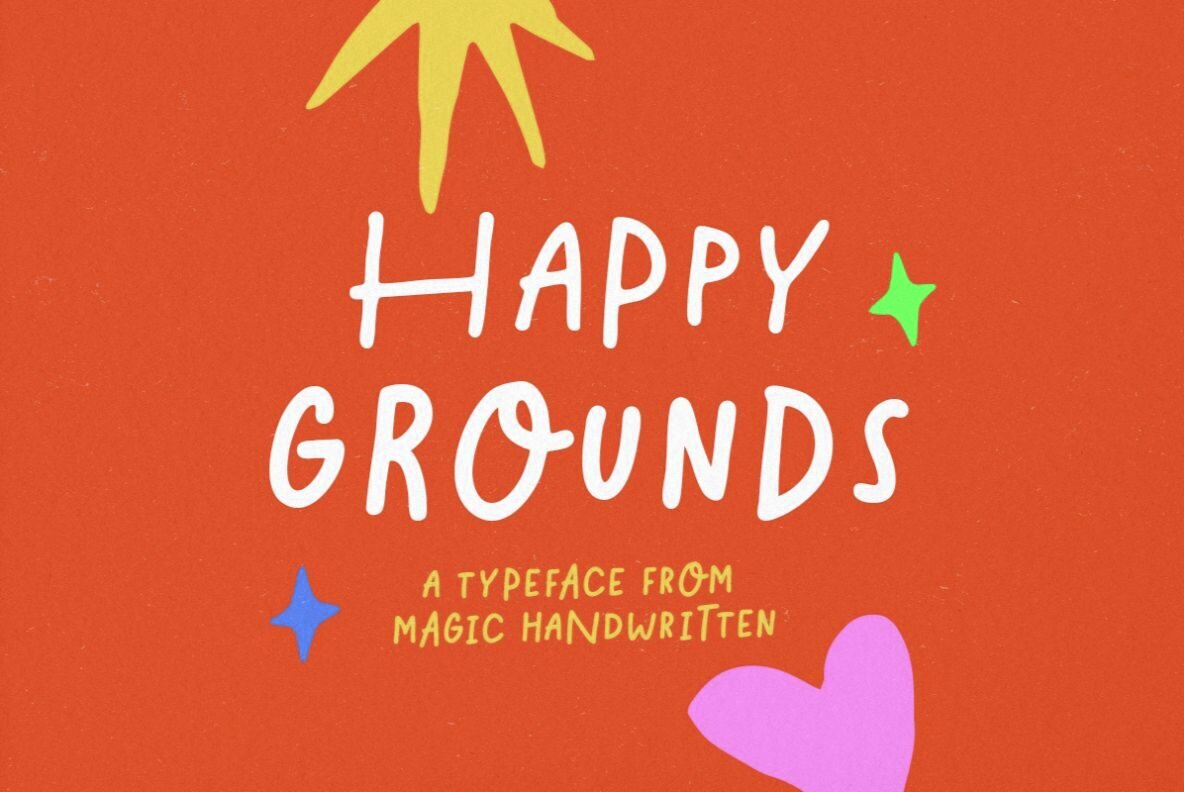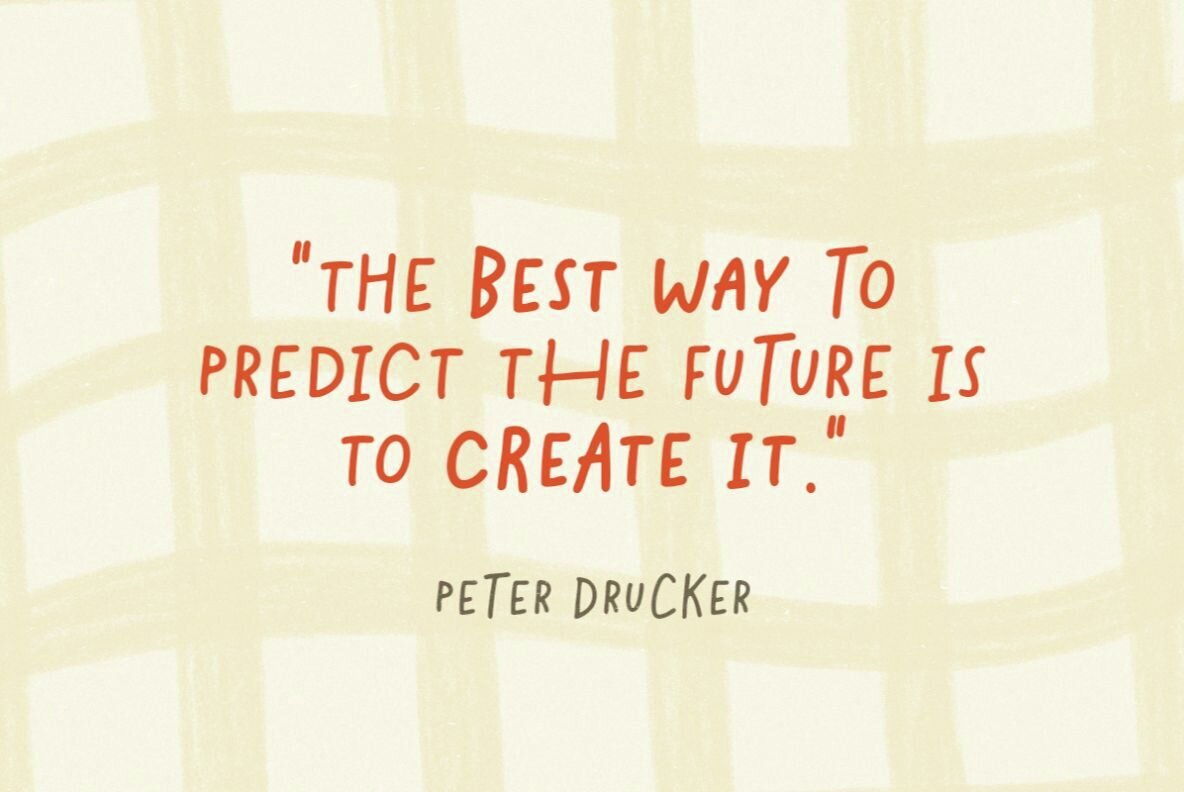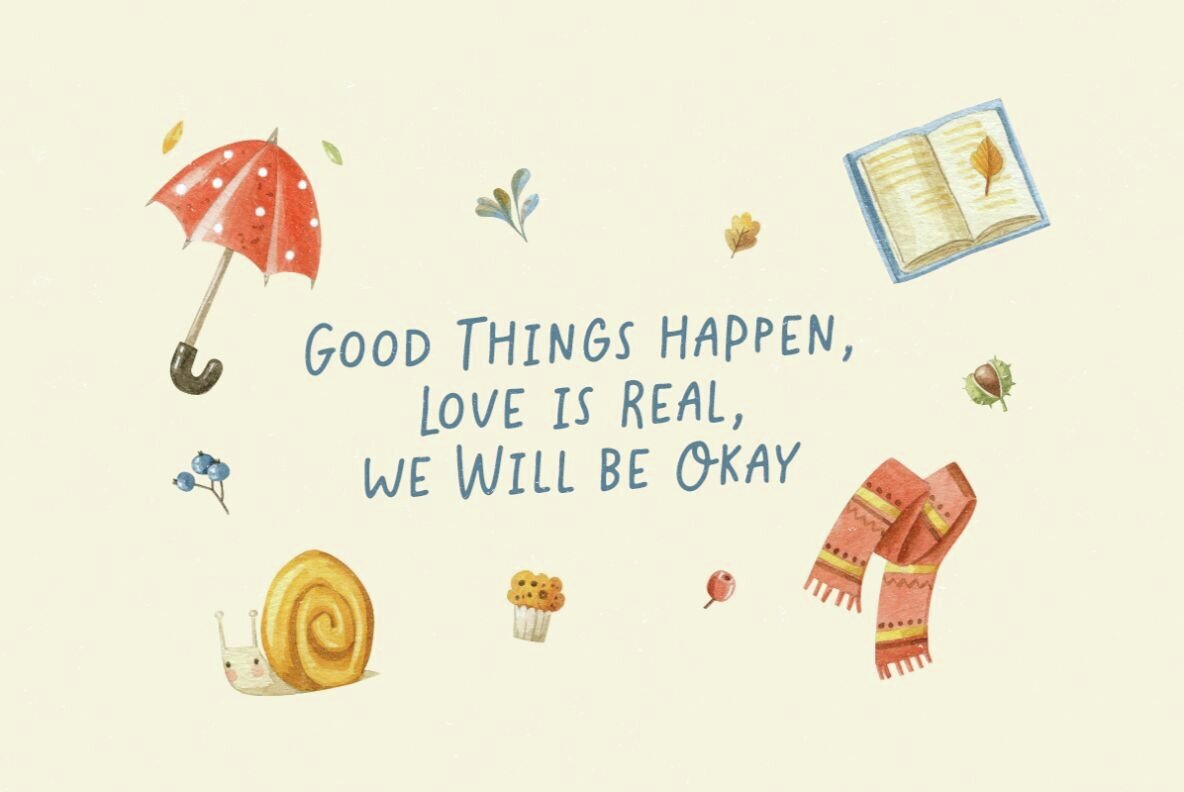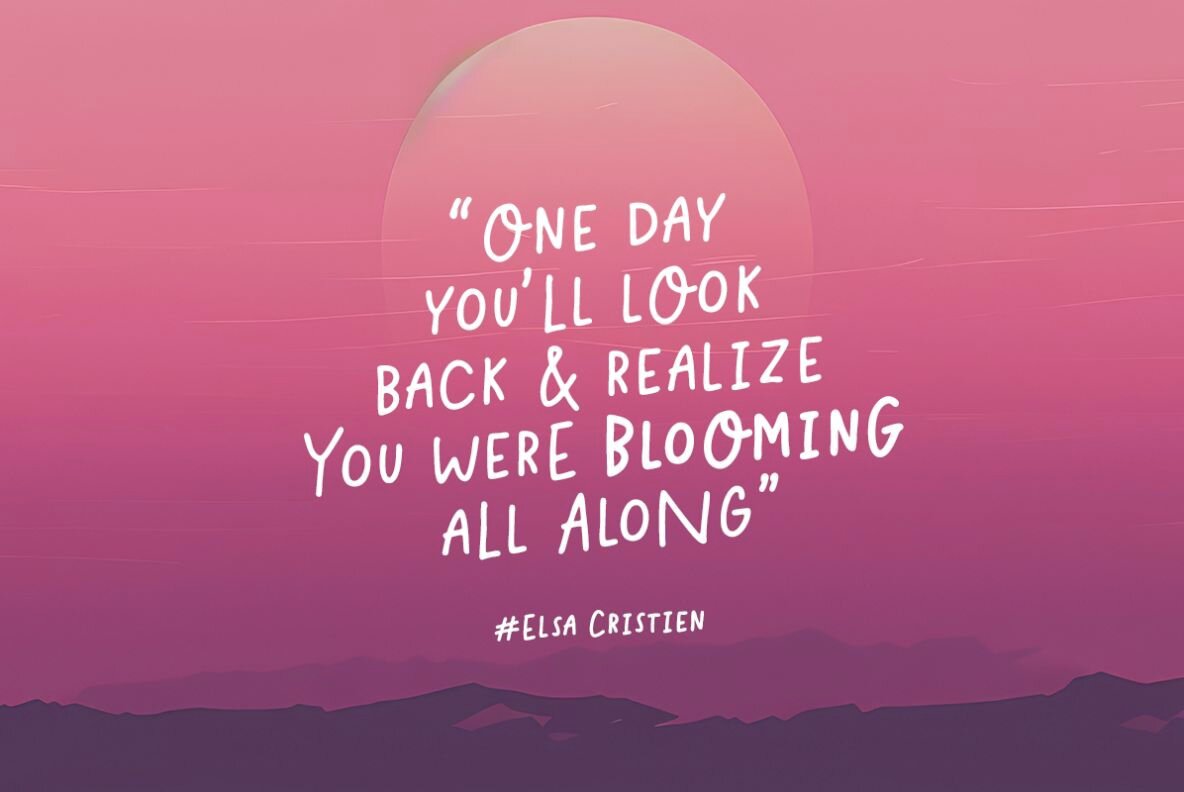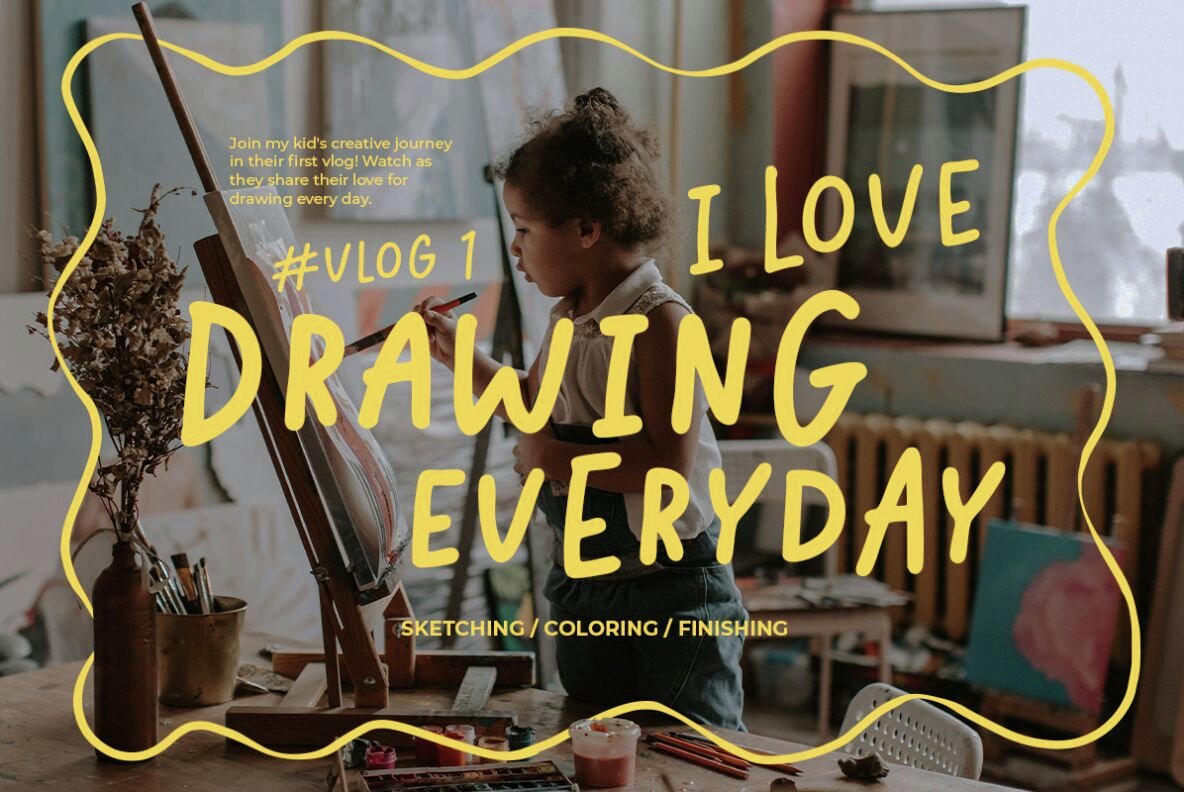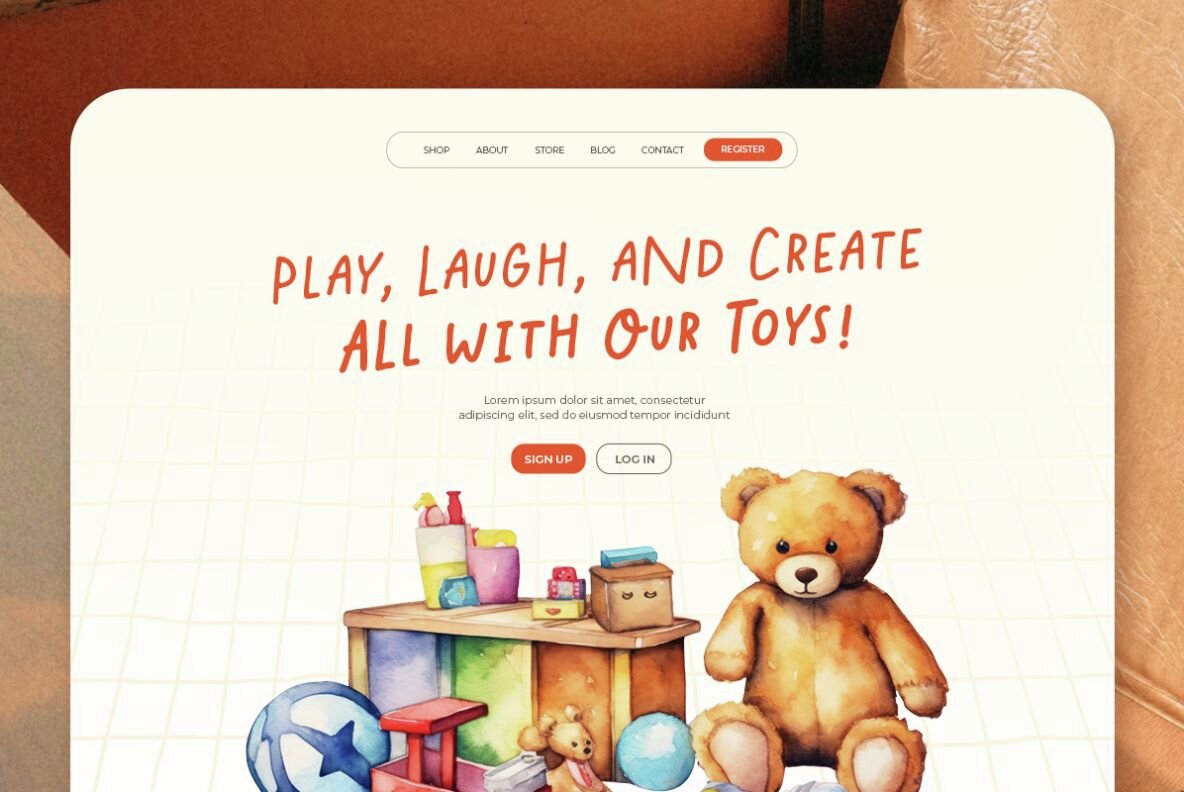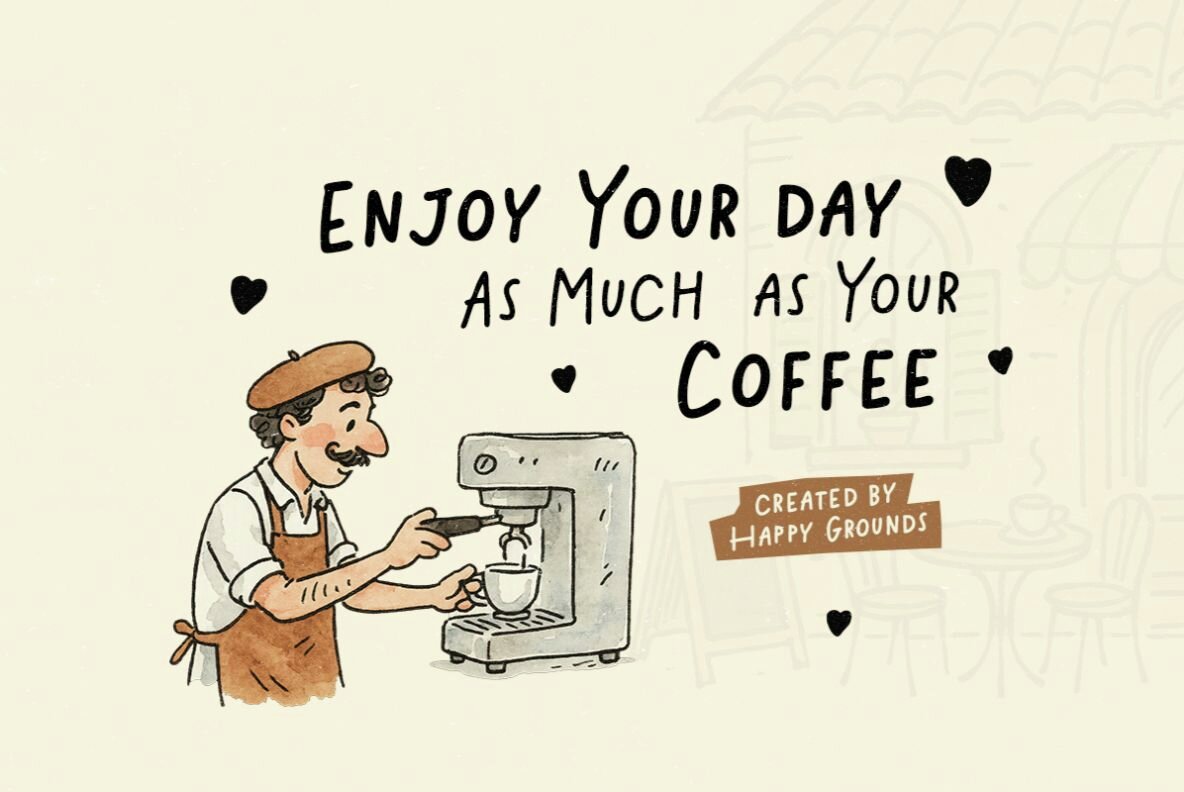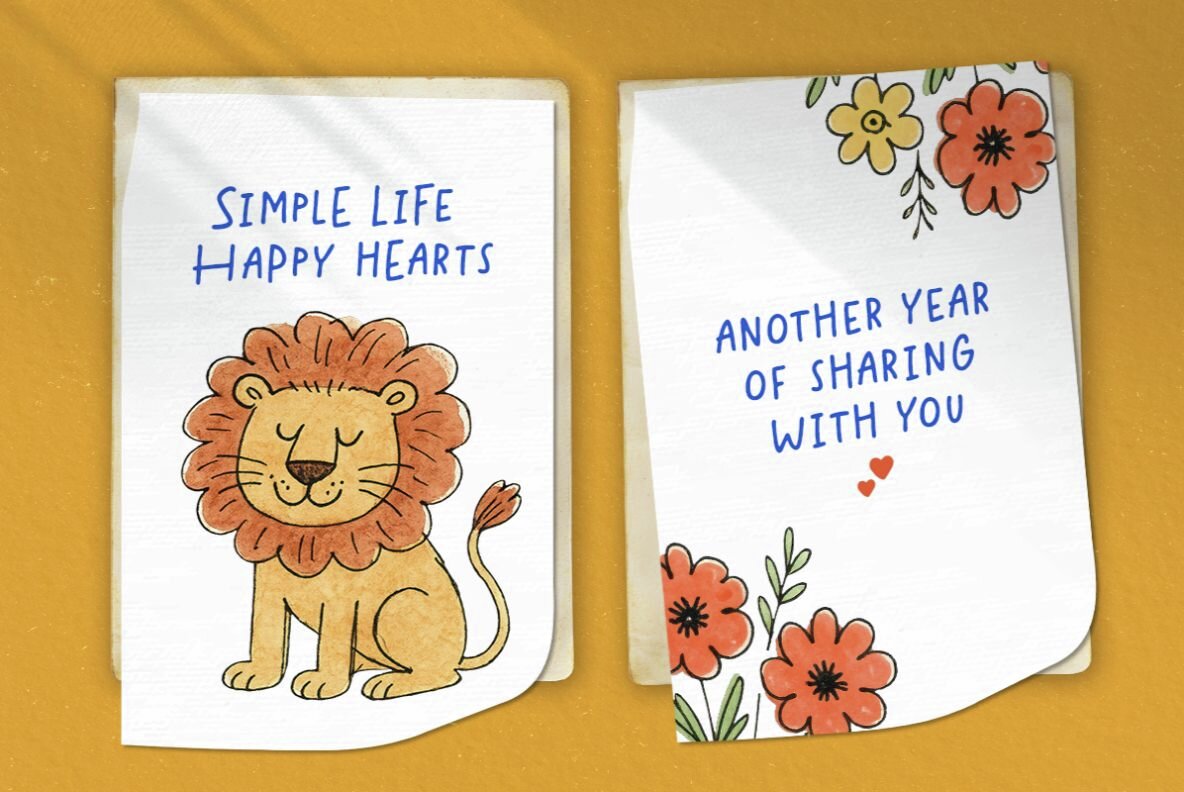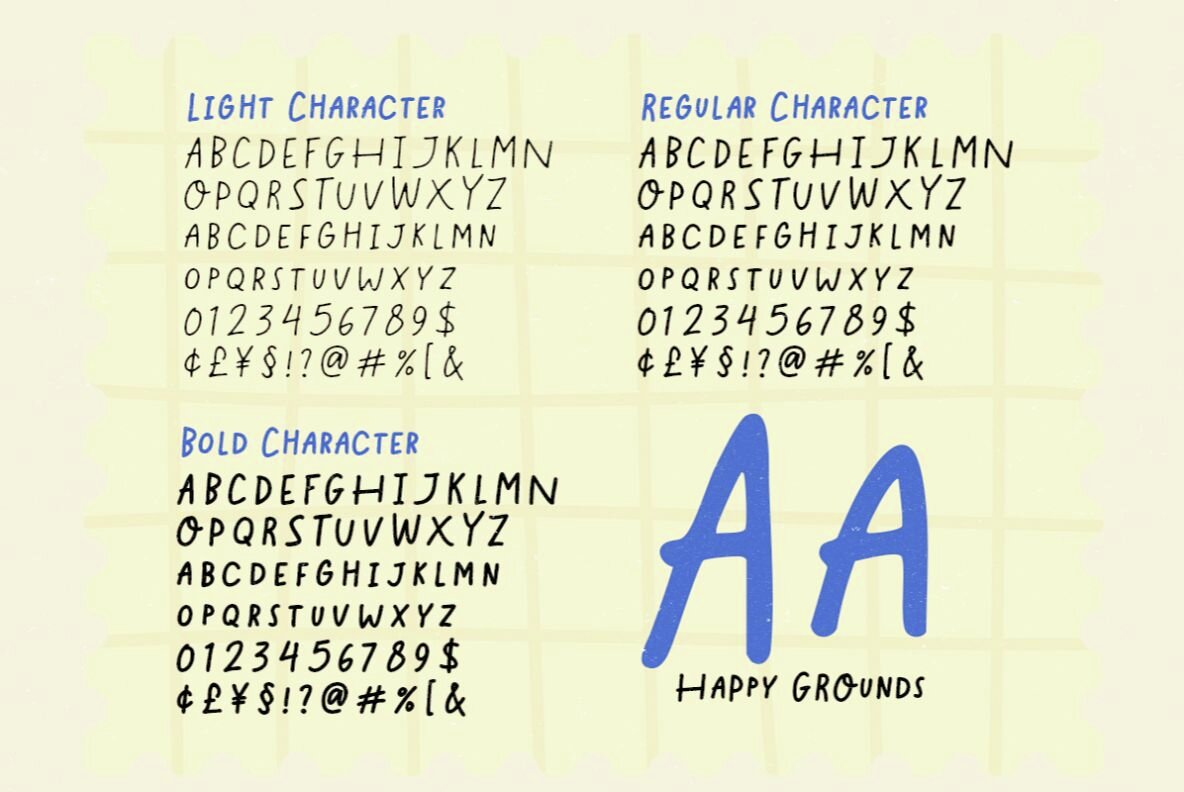
Happy Grounds Font
Happy Grounds Light
Happy Grounds Regular
Happy Grounds Bold
Happy Grounds is a delightful handwritten font, designed to infuse fun and smoothness into your projects. Its playful form makes it a versatile choice, ideal for branding, children's books, and crafting adorable quotes. With its all-caps design, you can creatively combine uppercase and lowercase letters to inject personality and charm into your work.Happy Grounds: A Whimsical Handwritten Font